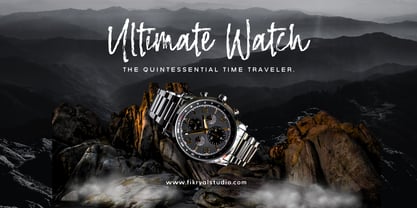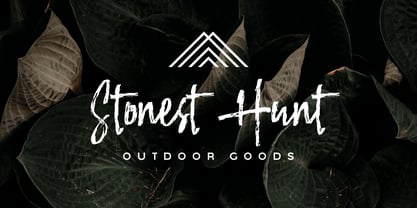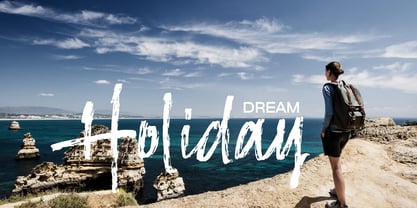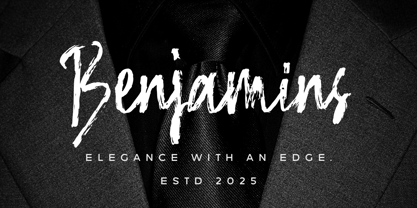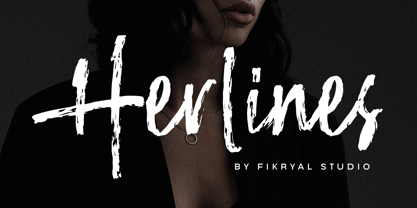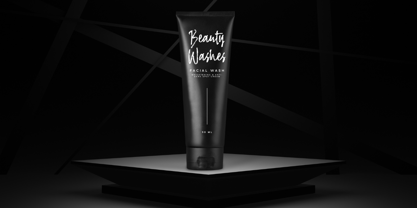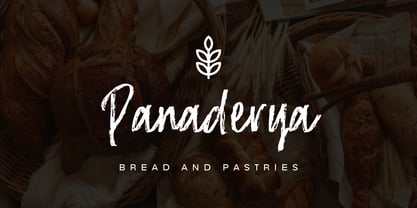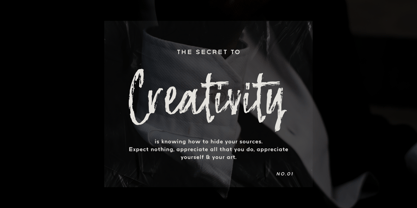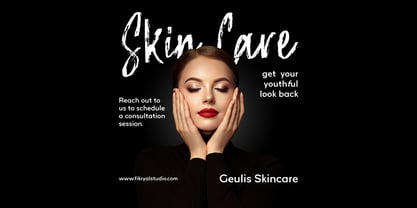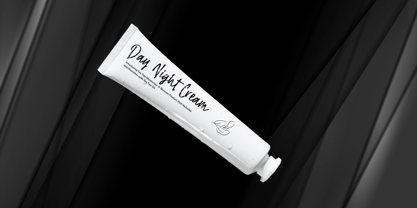
Herlines
The Herlines Font Family was designed by Muhammad Fikry and published by Fikryal. Herlines contains 1 styles. More about this family
Herlines is a bold and expressive brush script font that brings an authentic handcrafted feel to your designs. With its natural brush strokes and fluid letterforms, Herlines adds a dynamic and energetic touch to branding, logos, product packaging, posters, social media graphics, and more.
Designed to capture the essence of hand-drawn calligraphy, this font features smooth curves, natural flow, and unique stylistic alternates to enhance creativity. Whether you’re looking for a modern, edgy look or a casual, handwritten feel, Herlines delivers versatility and personality in every stroke.
• Handcrafted brush script style
• Natural and expressive brush strokes
• Uppercase & lowercase letters
• Alternates & ligatures for added creativity
• Multilingual support
• Perfect for branding, logos, packaging, posters, and social media
Elevate your designs with Herlines – Brush Script Font and make a bold statement today!